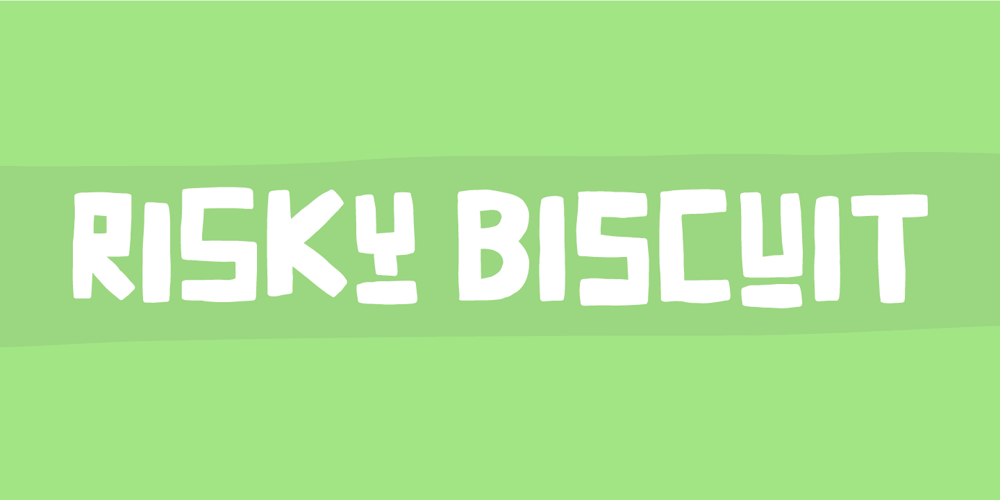
Risky Biscuit Font Family was designed by Jakob Fischer and published by PizzaDude.dk. Risky Biscuit contains 2 styles and family package options. Risky Biscuit is wants to go its own ways. It is never too much or too little – just perfect in its awkwardness!You may think surfer, skater, DJ or hand craft – that’s okay, because Risky Biscuit is all that and even more!Comes with contextual alternates – meaning 5 different letters AND small caps for each vowel…and of course multilingual support!